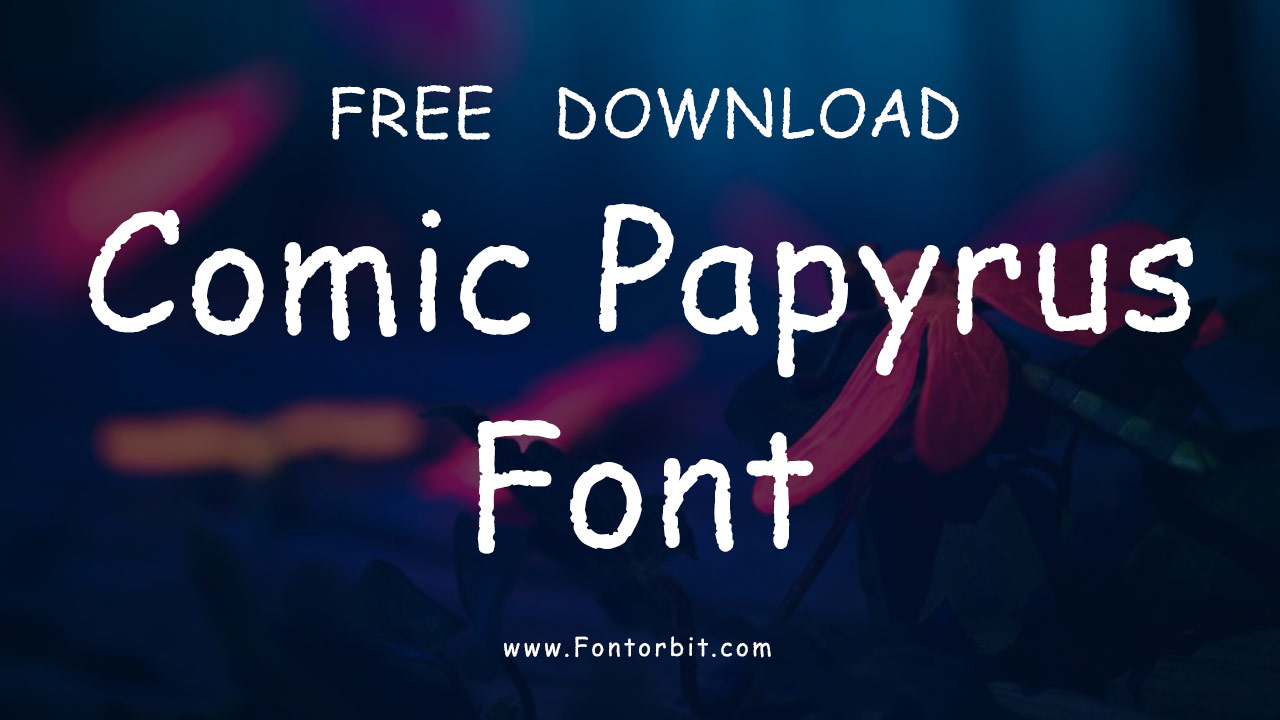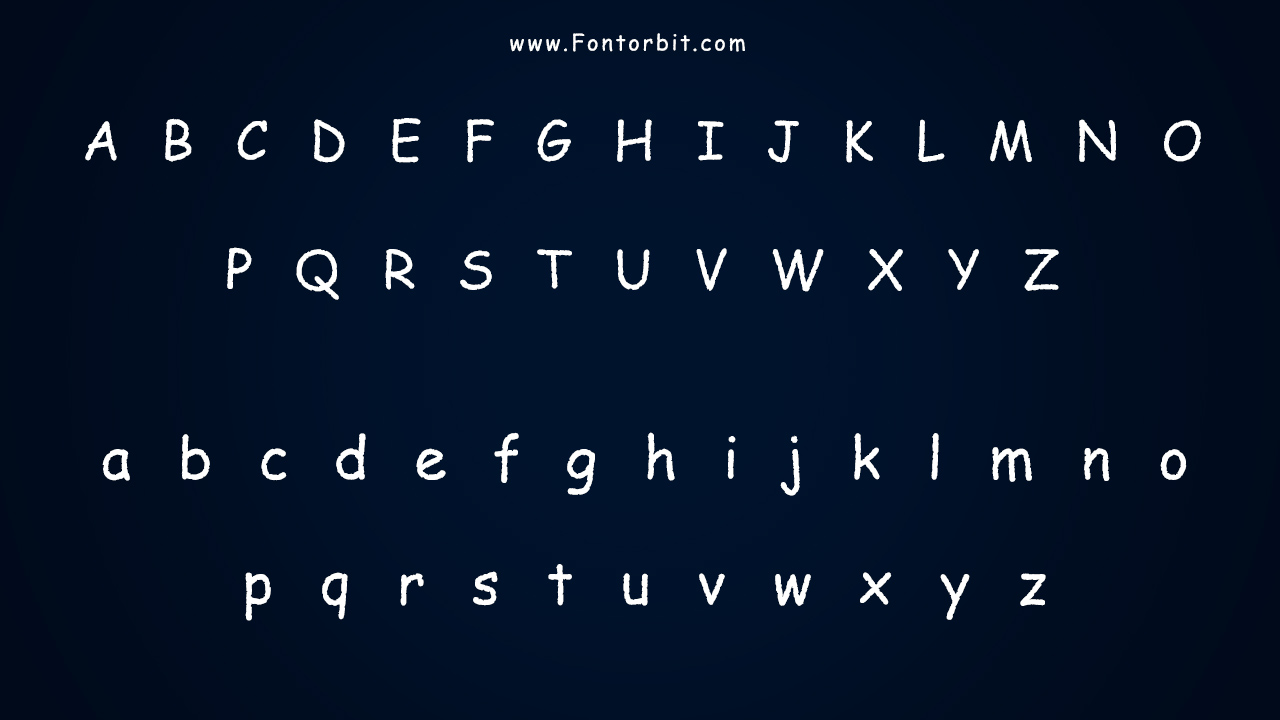
Comic Papyrus, a typeface created by Ben Harman, combines the playful elements of Comic Sans with the ancient, hand-drawn look of Papyrus.
This hybrid font offers a unique blend of fun and rustic aesthetics, making it a versatile choice for a variety of creative projects. While the font is free for personal use, it captures the essence of two well-known fonts and merges them into one cohesive style that is both eye-catching and memorable.
Comic Papyrus features a unified style that merges the casual, comic-style strokes of Comic Sans with the textured, ancient look of Papyrus. This font family includes a range of features that contribute to its playful yet rustic appeal.
Comic Papyrus is ideal for projects that seek to combine a sense of humor with a nostalgic or ancient look. Its hybrid design makes it suitable for both informal and creative applications. The font is particularly well-suited for:
- Print Media: Comic books, posters, banners, and magazine layouts where a playful and engaging aesthetic is desired.
- Digital Content: Websites, blogs, and social media graphics that benefit from a light-hearted yet impactful font.
- Branding: Quirky, fun branding projects, including logos and packaging that aim to stand out with a unique style.
- Event Invitations: Perfect for casual or themed event invitations that want to incorporate a blend of humor and rustic charm.
- Creative Projects: T-shirts, mugs, stickers, and other personalized items that call for a distinctive look.
Comic Papyrus offers a unique blend of two highly recognizable fonts, creating a typeface that is both playful and nostalgic. Its distinctive appearance makes it a versatile choice for a wide range of creative projects, from print to digital media.
By pairing Comic Papyrus with other modern or traditional typefaces, you can create visually compelling designs that stand out.
1.Is Comic Papyrus Suitable For All Types Of Design Projects?
Comic Papyrus is best suited for projects that want to incorporate a playful or nostalgic touch. While it works well for casual and creative designs, it may not be ideal for formal or minimalist projects.
2.What Makes Comic Papyrus Different From Other Hybrid Fonts?
Comic Papyrus distinguishes itself by combining the iconic casual style of Comic Sans with the textured, ancient look of Papyrus. This unique hybrid creates a memorable and distinct aesthetic that is not commonly found in other fonts.
3.What Are The Popular Uses Of Comic Papyrus?
Comic Papyrus is widely popular using in print materials, such as comic books, posters, and banners, as well as in digital media, including websites, blogs, and social media graphics.
4.What Are The Design Principles Behind Comic Papyrus?
The design principles focus on blending playful, informal elements with a rustic, hand-drawn feel. The font aims to provide a unique, memorable look that combines the best aspects of both Comic Sans and Papyrus.
5.What Color Palette Is Typically Used With Comic Papyrus?
Comic Papyrus pairs well with bright, fun colors to highlight its playful side, as well as with earthy, muted tones to emphasize its rustic charm. High-contrast color schemes can enhance its visual impact and make it stand out.